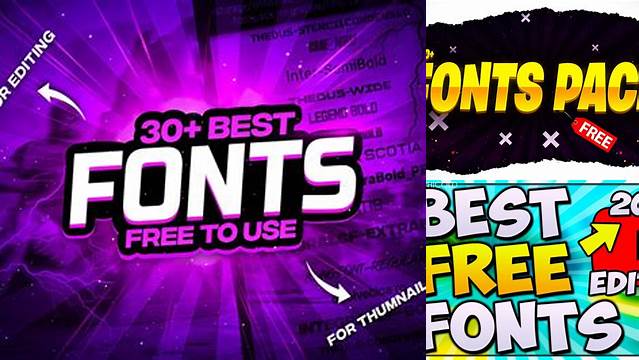
Best Fonts For YouTube Thumbnails: Get More Clicks!
Are you a content creator looking to level up your YouTube game? One of the most crucial, yet sometimes overlooked, aspects of a successful YouTube channel is the visual appeal of your thumbnails. A captivating thumbnail can be the deciding factor between a viewer clicking on your video or scrolling past it. And what's one of the key ingredients in a great thumbnail? You guessed it: cool fonts! Choosing the right font can make your thumbnail pop, convey the tone of your video, and ultimately, attract more viewers.
Why Fonts Matter for YouTube Thumbnails
Let's dive into why selecting the perfect font is absolutely essential for your YouTube thumbnails. Think of your thumbnail as a mini-poster for your video. It's the first impression you make on potential viewers, and in the vast sea of YouTube content, you need to stand out. Fonts play a vital role in this first impression.
- Readability is Key: First and foremost, your font needs to be readable. No matter how stylish or trendy a font might be, if viewers can't easily decipher the text on your thumbnail, they're likely to scroll on by. Opt for fonts that are clear, crisp, and legible, even at smaller sizes. This is crucial, especially for viewers watching on mobile devices.
- Conveying Tone and Style: Fonts have personalities! A playful, bubbly font can signal a fun and lighthearted video, while a bold, sans-serif font might suggest a serious or informative topic. Consider the overall tone and style of your content and choose a font that complements it. For example, if you're creating a gaming video, a futuristic or edgy font might be a good choice. If you're making a cooking tutorial, a clean and elegant font could be more fitting.
- Creating Visual Hierarchy: Fonts can help you create a visual hierarchy on your thumbnail. Use different font sizes and styles to emphasize important keywords or phrases. A larger, bolder font can draw attention to the main topic of your video, while a smaller, more subtle font can be used for supporting information. This helps viewers quickly grasp the essence of your video and encourages them to click.
- Brand Consistency: If you're serious about building a brand on YouTube, using consistent fonts across your thumbnails is a smart move. This helps viewers instantly recognize your content and creates a sense of professionalism. Choose a few fonts that represent your brand and stick with them. Over time, viewers will associate those fonts with your channel, further strengthening your brand identity.
- Standing Out from the Crowd: Let's face it, YouTube is a competitive platform. Millions of videos are uploaded every day, so you need to find ways to make your content stand out. Choosing unique and eye-catching fonts can help you grab viewers' attention and differentiate your thumbnails from the rest. Don't be afraid to experiment with different font combinations and styles to find what works best for you.
In short, your font choice is a critical element of your YouTube thumbnail design. It affects readability, conveys tone, creates visual hierarchy, builds brand consistency, and helps you stand out. So, let's explore some cool font options that can help you create thumbnails that grab attention and get clicks!
Top Font Categories for YouTube Thumbnails
Now that we understand the importance of fonts, let's explore some specific categories that work exceptionally well for YouTube thumbnails. These categories offer a variety of styles and personalities, ensuring you'll find the perfect fit for your content.
1. Bold Sans-Serif Fonts
Sans-serif fonts are your go-to choice for clarity and readability, especially when space is limited on a thumbnail. Their clean lines and lack of decorative serifs make them easy to read at a glance. When you need to convey a message quickly and efficiently, a bold sans-serif font is your best friend. These fonts are incredibly versatile, working well for a wide range of video topics, from tutorials and reviews to vlogs and gaming videos. Their boldness helps them stand out against busy backgrounds, ensuring your text is always legible.
- Why they work: Bold sans-serif fonts command attention. They are direct, modern, and communicate your message with authority. Think of them as the powerhouse fonts of the thumbnail world. They are easy to read even at smaller sizes, making them perfect for mobile viewers. Their clean design ensures your message is the focus, not the font itself.
- Examples: Arial Black, Montserrat Bold, Bebas Neue, Impact, Open Sans Extra Bold, Roboto Black, and Poppins Bold are fantastic options. Each offers a slightly different flavor, from the classic appeal of Arial Black to the modern feel of Montserrat Bold. Experiment with a few to see which best suits your brand.
- Best for: Tutorials, news videos, product reviews, motivational content, and any video where clarity and a strong message are crucial. If you want your title to jump off the screen, a bold sans-serif font is the way to go.
- Pro Tip: Combine a bold sans-serif font with a contrasting background color for maximum impact. A white font on a dark background or a bright color on a neutral background can make your text pop. Use these fonts for your primary headline or key message.
2. Impactful Slab-Serif Fonts
Slab-serif fonts are the bolder cousins of traditional serif fonts. They possess thick, block-like serifs that add weight and character to your text. Think of them as a mix between the classic feel of a serif font and the modern punch of a sans-serif. They exude confidence and make a strong statement, making them excellent choices for thumbnails that need to grab attention. These fonts have a vintage yet contemporary feel, making them perfect for a wide variety of content.
- Why they work: Slab-serif fonts have a unique visual presence. They are substantial and command attention without being overly aggressive. Their thick serifs make them highly readable, even from a distance. These fonts are ideal for creating a bold and memorable visual impact.
- Examples: Rockwell Bold, Arvo, Roboto Slab, Playfair Display Black (for shorter titles), and ChunkFive are great choices. Rockwell Bold offers a classic slab-serif look, while Arvo is slightly more modern. ChunkFive is perfect for a retro or vintage aesthetic.
- Best for: Vlogs, storytelling videos, educational content, historical videos, or anything where you want to add a touch of personality and gravitas. They are particularly effective when you want to convey a sense of authority or trustworthiness.
- Pro Tip: Use slab-serif fonts sparingly. Their bold nature means they can quickly overwhelm a thumbnail if overused. Pair them with a simpler sans-serif font for body text or supporting information. Experiment with different letter spacing to enhance readability.
3. Creative Script Fonts (Use Sparingly!)
Script fonts are the elegant and artistic fonts that mimic handwriting. They can add a touch of personality, flair, and sophistication to your thumbnails. However, a word of caution: script fonts should be used sparingly and with careful consideration. Their decorative nature can sometimes compromise readability, especially at smaller sizes. When used correctly, script fonts can make your thumbnail feel more personal and inviting.
- Why they work: Script fonts bring a human touch to your thumbnails. They convey creativity, artistry, and individuality. If your video has a personal or artistic theme, a script font can be a perfect fit. They are also great for creating a sense of luxury or exclusivity.
- Examples: Brush Script MT, Pacifico, Lobster Two, Great Vibes, and Alex Brush are popular choices. Brush Script MT has a classic, handwritten feel, while Pacifico is more casual and playful. Lobster Two is bold and attention-grabbing.
- Best for: Beauty tutorials, lifestyle vlogs, wedding videos, creative projects, or anything where a personal and artistic touch is desired. If your video is about handwriting, calligraphy, or any other art form, a script font is a natural choice.
- Pro Tip: Use script fonts for short titles or single words only. Avoid using them for long sentences or paragraphs, as they can become difficult to read. Pair them with a simple sans-serif font for the main title to ensure readability. Test your thumbnail on different devices to ensure the script font is legible.
4. Modern Display Fonts
Modern display fonts are the avant-garde of the font world. They often feature unique shapes, unconventional letterforms, and a contemporary aesthetic. These fonts are designed to grab attention and make a statement. They are perfect for thumbnails that need to convey a cutting-edge or futuristic vibe. While they can be incredibly impactful, it's important to use them judiciously to maintain readability.
- Why they work: Modern display fonts instantly signal innovation and originality. They are perfect for videos that explore technology, design, or any topic that pushes boundaries. They can help your thumbnail stand out from the crowd and create a strong visual identity.
- Examples: Montserrat Alternates, Futura, Raleway, Bebas Neue (again, versatile!), and Lemon Milk are excellent options. Montserrat Alternates offers a slightly different take on the classic Montserrat, while Futura is a timeless geometric sans-serif. Lemon Milk is a more quirky and playful option.
- Best for: Tech reviews, design tutorials, gaming videos, futuristic concepts, or anything that needs a modern and edgy feel. If you want to convey a sense of innovation and sophistication, a modern display font is a great choice.
- Pro Tip: Modern display fonts can sometimes be less readable than more traditional fonts. Choose fonts with clear letterforms and avoid overly stylized options. Use them for the main title and pair them with a simpler font for any supporting text. Consider the overall color palette of your thumbnail to ensure the font stands out.
Selecting the perfect font for your YouTube thumbnails is a creative process, but there are some key principles to keep in mind to ensure your thumbnails are effective.
- Consider Your Content: The most important factor in font selection is the content of your video. What is your video about? What is the tone and style? A font that works for a cooking tutorial might not be suitable for a gaming video. Choose a font that accurately reflects the essence of your content.
- Readability is Paramount: No matter how stylish a font might be, if it's not readable, it's not a good choice for a thumbnail. Viewers need to be able to quickly and easily decipher the text on your thumbnail. Prioritize readability above all else. Test your thumbnail on different devices to ensure the font is legible.
- Contrast is Crucial: Ensure your font contrasts well with the background. A dark font on a light background or a light font on a dark background is generally the most effective. Avoid using colors that are too similar, as this can make the text difficult to read. Experiment with different color combinations to find what works best.
- Limit the Number of Fonts: Using too many different fonts on a single thumbnail can create a cluttered and unprofessional look. Stick to a maximum of two or three fonts. Choose fonts that complement each other and create a cohesive visual style.
- Think About Branding: If you're serious about building a brand on YouTube, using consistent fonts across your thumbnails is essential. This helps viewers instantly recognize your content and creates a sense of professionalism. Choose a few fonts that represent your brand and stick with them.
- Test and Iterate: Don't be afraid to experiment with different fonts and styles. Try out different combinations and see what works best for you. Pay attention to your click-through rate (CTR) and see if certain font choices perform better than others. Continuously test and iterate to optimize your thumbnail design.
- Check Font Licensing: Before using any font, make sure you have the appropriate license. Many free fonts are available for personal use, but commercial use may require a license. Respect font creators and their intellectual property.
Where to Find Cool Fonts for YouTube Thumbnails
Now that you know what to look for in a font, where can you find them? Fortunately, there are numerous resources available online where you can discover a wide variety of fonts for your thumbnails.
- Google Fonts: Google Fonts is a fantastic resource for free, high-quality fonts. It offers a vast library of fonts that are easy to use and integrate into your designs. All fonts on Google Fonts are open-source and free for commercial use, making it a great option for budget-conscious creators.
- Adobe Fonts: If you have an Adobe Creative Cloud subscription, you have access to Adobe Fonts, a vast library of professionally designed fonts. Adobe Fonts offers a wide range of styles and weights, ensuring you'll find the perfect font for your needs. Adobe Fonts are automatically synced with your Adobe Creative Cloud applications, making them incredibly convenient to use.
- DaFont: DaFont is a popular website that offers a huge selection of free fonts. While the quality of fonts on DaFont can vary, it's a great place to discover unique and creative options. Be sure to check the licensing information for each font before using it, as some may only be free for personal use.
- Font Squirrel: Font Squirrel is another excellent resource for free fonts. It carefully curates its selection to ensure that all fonts are high-quality and legally available for commercial use. Font Squirrel also offers a font identifier tool, which can help you identify fonts you see online.
- Creative Market: Creative Market is a marketplace where you can purchase fonts, graphics, and other design assets. It offers a wide range of premium fonts created by talented designers. Creative Market is a great option if you're looking for unique and high-quality fonts that you won't find anywhere else.
Level Up Your Thumbnails with Awesome Fonts
Choosing the right fonts for your YouTube thumbnails is an investment in your channel's success. By carefully selecting fonts that are readable, engaging, and reflect your brand, you can create thumbnails that grab attention, attract clicks, and ultimately, grow your audience. So, go ahead and experiment with different fonts, explore the resources mentioned above, and find the perfect typography to take your thumbnails to the next level. Happy creating, guys!